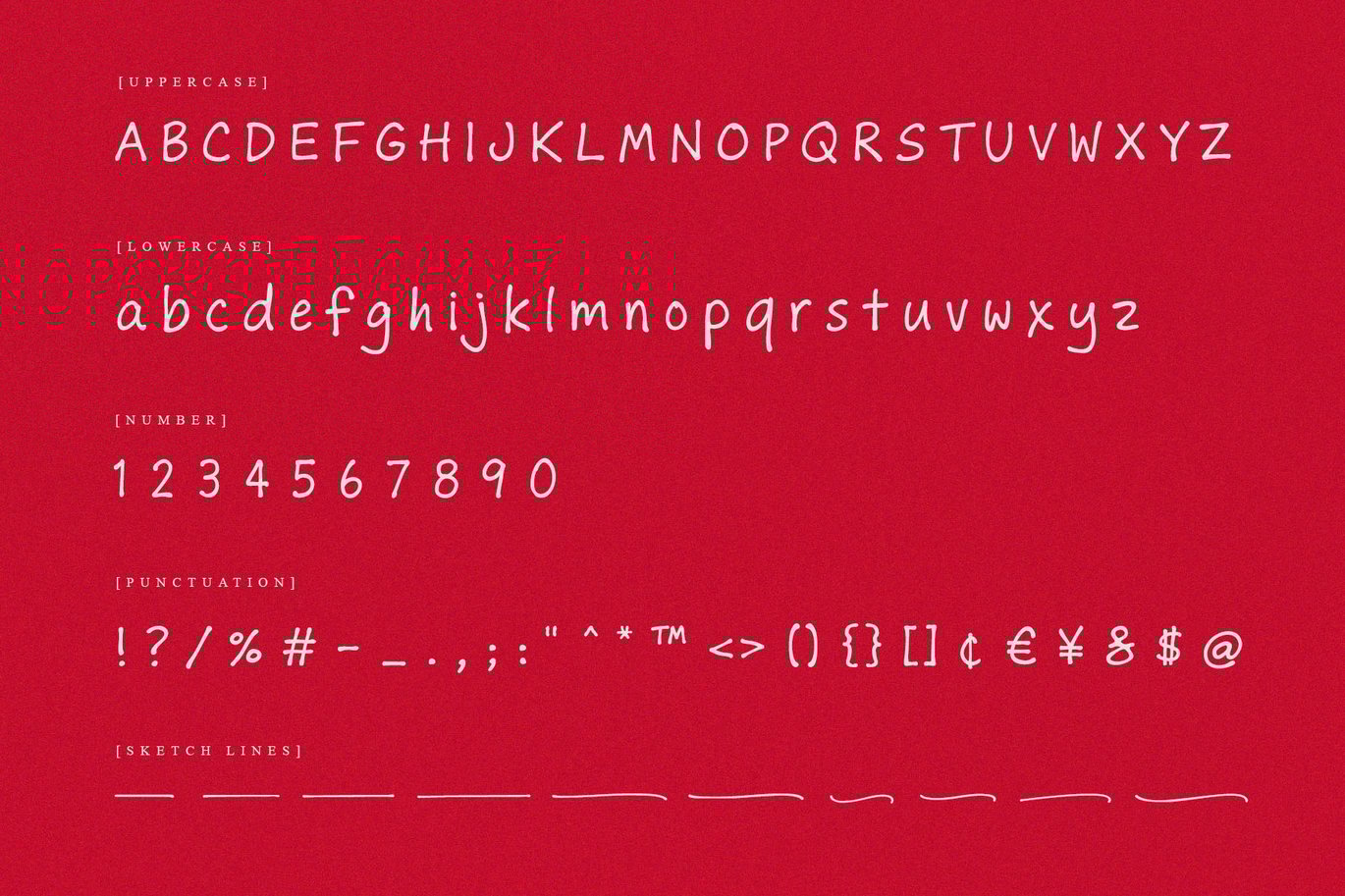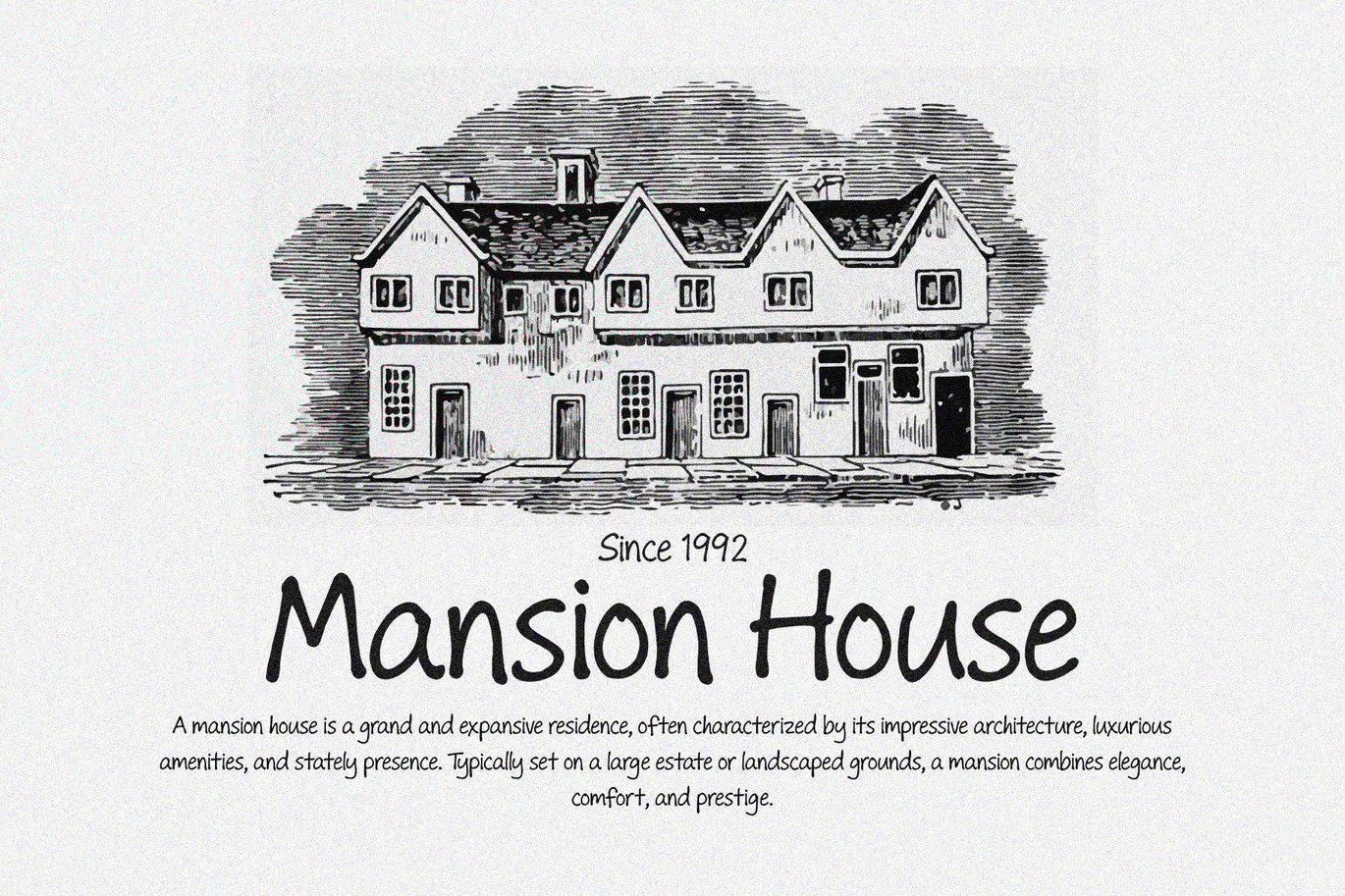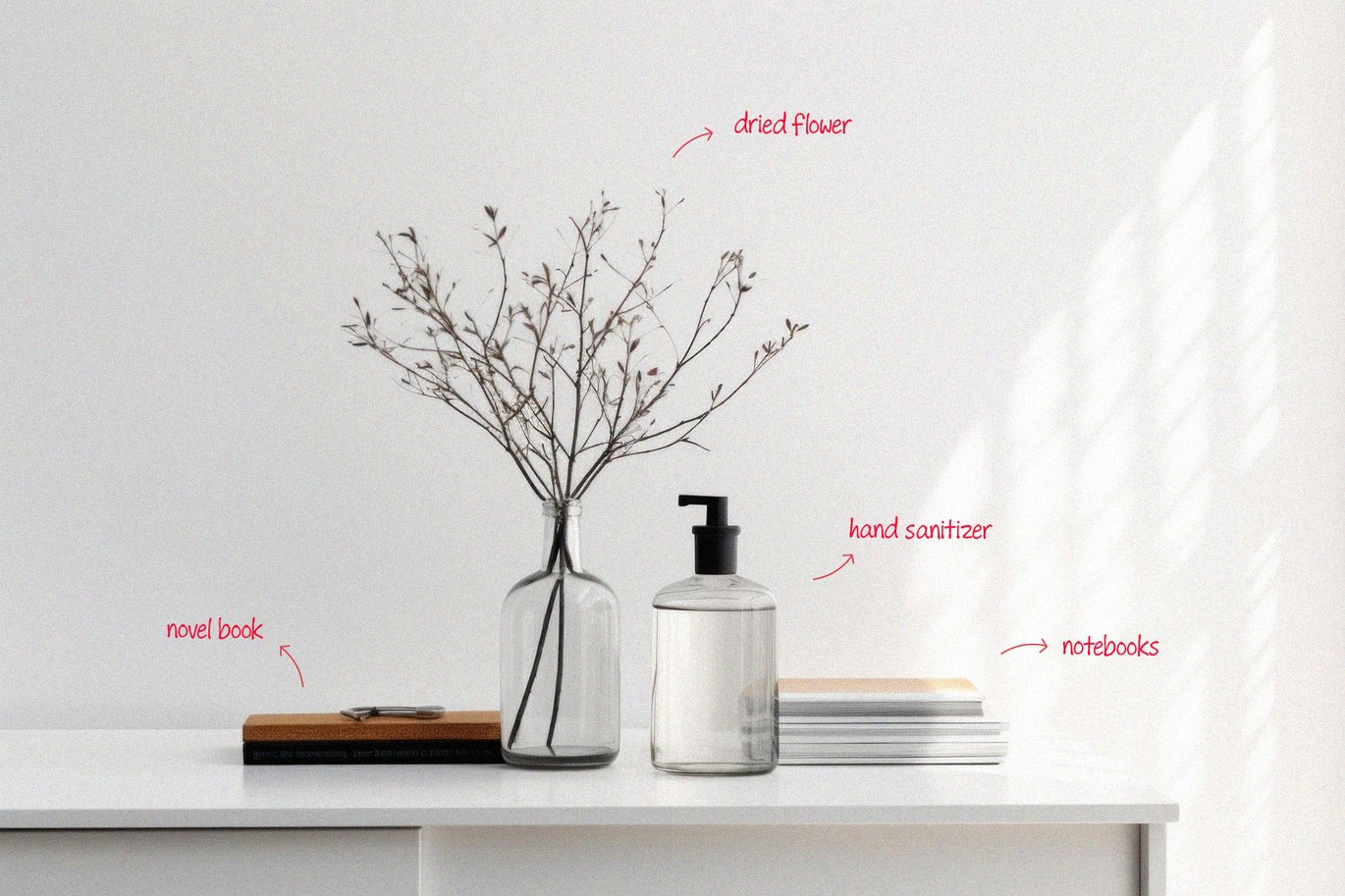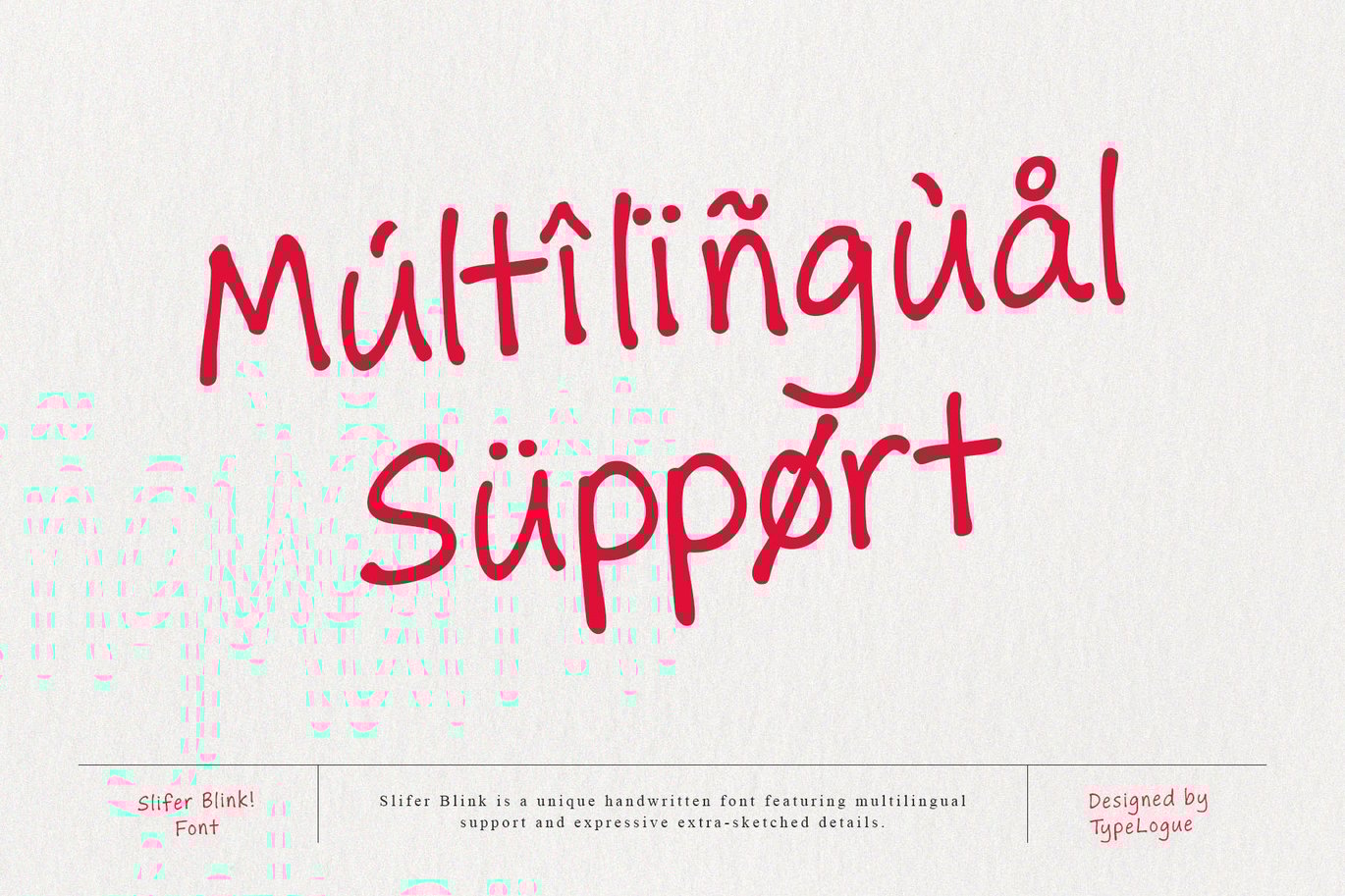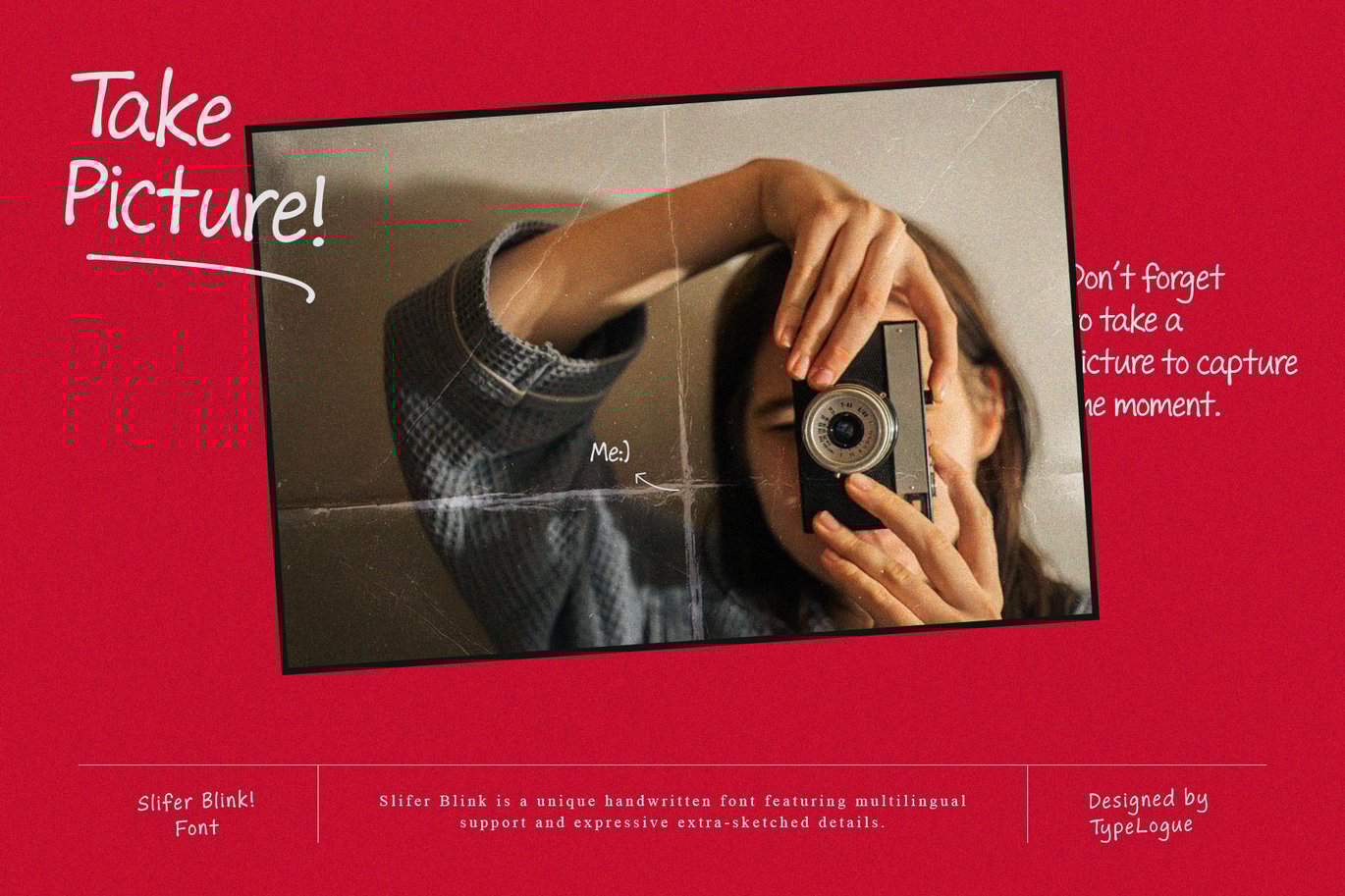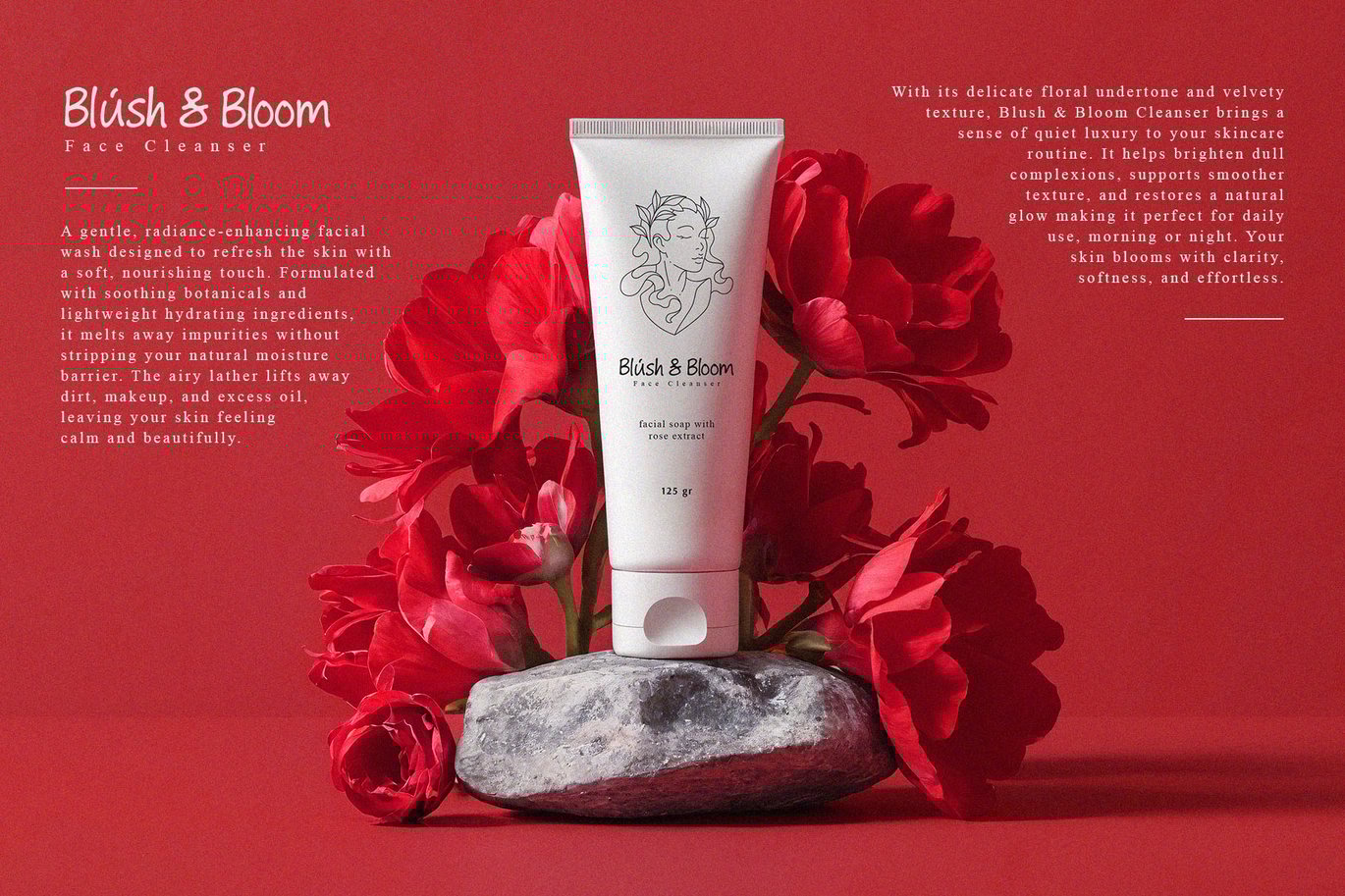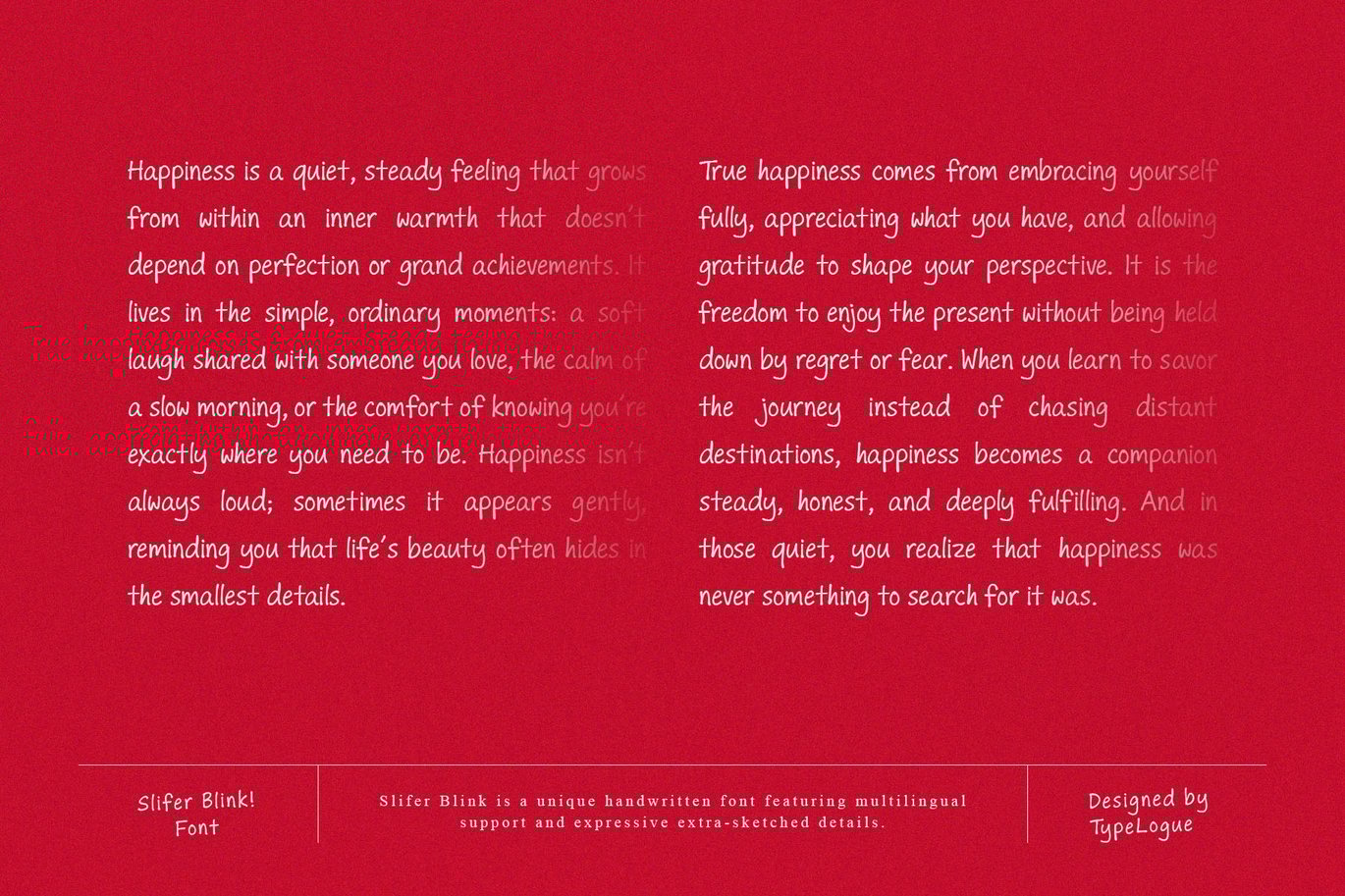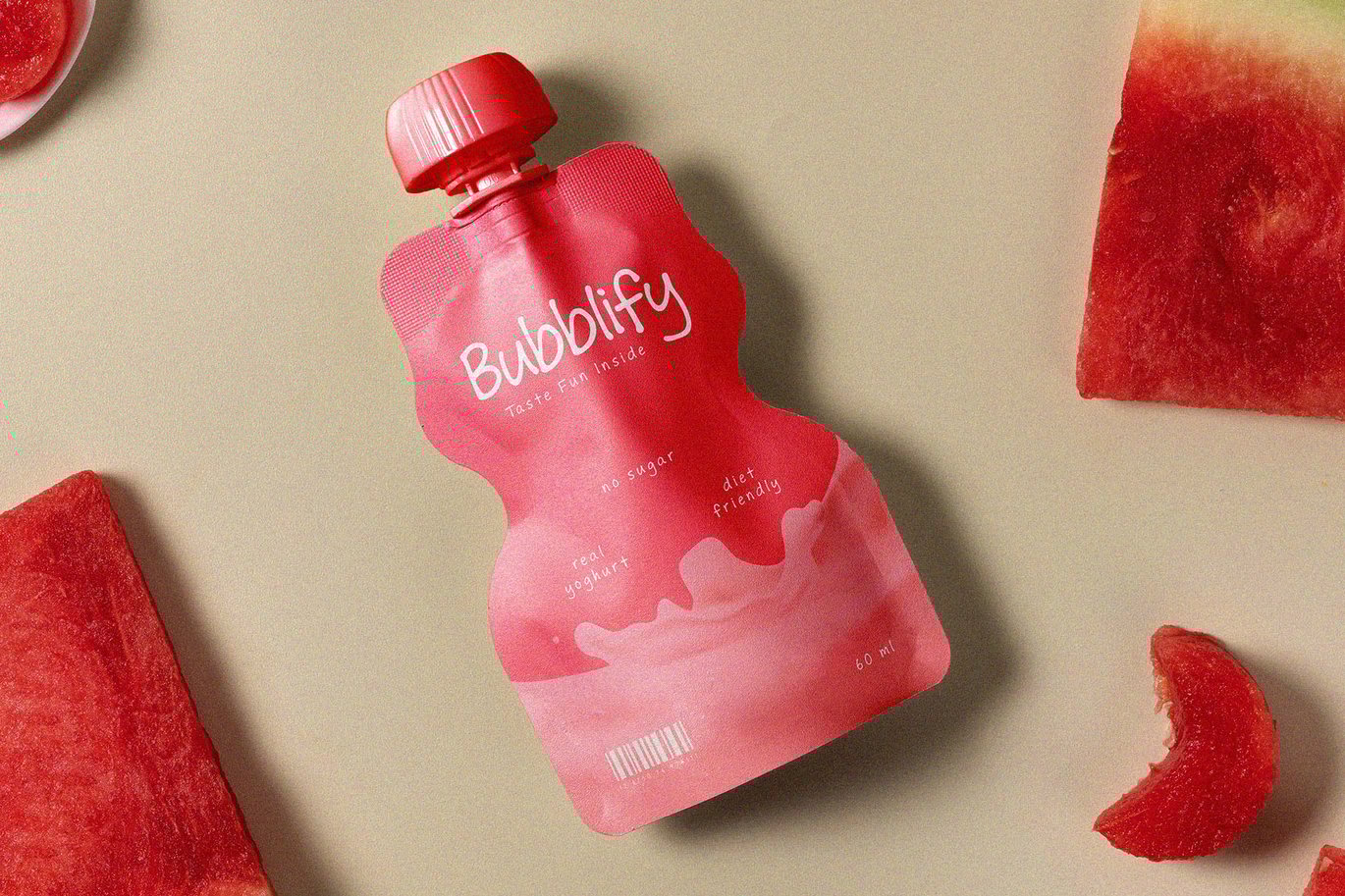
Slifer Blink - Organic Handwritten
Slifer Blink is a fun, bouncy organic handwritten sans font that radiates personality and charm. Its organic letterforms and smooth curves make it ideal for children’s books, playful branding, greeting cards, social media posts, and creative packaging.
With a casual yet well-balanced design, Slifer Blink brings a friendly, approachable tone to any project. Perfect for designers looking to infuse joy, authenticity, and warmth into their visual storytelling.
Features:
• Uppercase
• Lowercase
• Numeral & Punctuation
• Multilingual
• Sketch Line